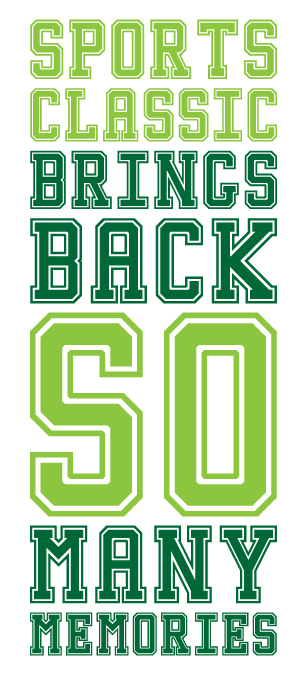
Sport Classic
Andrew Lockhart (rockhart)
Tried my hand at a retro-inspired letterman jacket font.
Slab Serif
very vintage classic looking. not sure about the top of the T, and top and bottom of the Z - but just my aesthetic. i do think you should increase the character space to improve readability. overall, very well done.
This is good work.
A few suggestions...
The G, S, and T appear too wide to my eye.
The K seems to have some leftover work on it.
The diagonal on the Z appears to heavy.
Thanks! You're right I fixed the T and a few of the other letters. and good catch on the spacing too
thanks for catching that! forgot to erase the other k that i was playin around with :s
very nice sample and enhancement by adding the lc. now all you need to some punctuation :)
Great collegiate feel. Digging that old Leatherheads photo as well.
Very nice Work. We don't feel the pattern behind the design